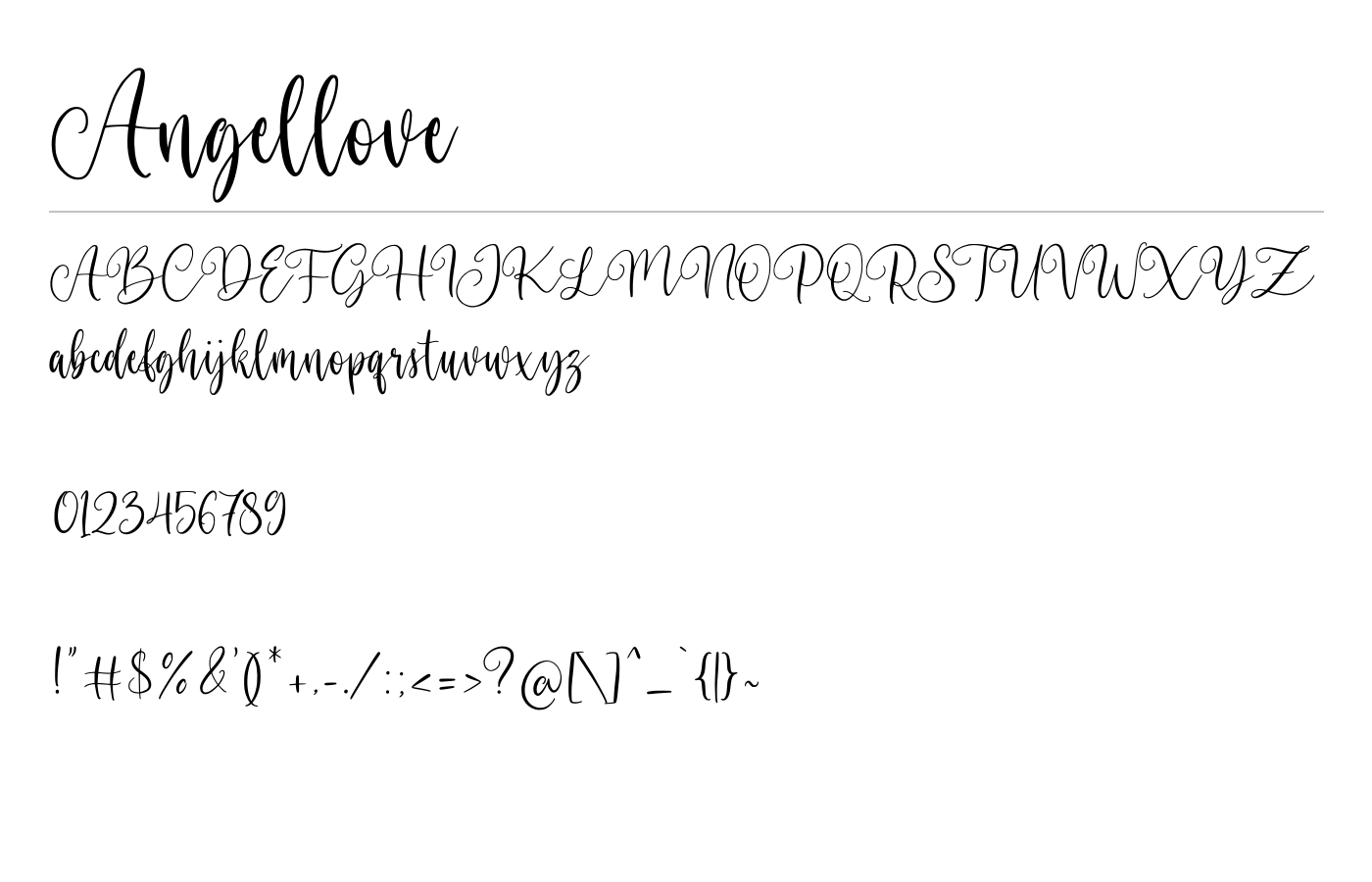
Angellove is an elegant script font characterized by its flowing, delicate strokes and graceful, handwritten style. It blends a light, airy feel with refined curves and playful connections, making it perfect for romantic or feminine branding, wedding invitations, and stylish editorial designs. This font stands out with its charming personality and readability, excelling in projects that seek a personal, sophisticated touch.
Angellove Font
About Angellove Font